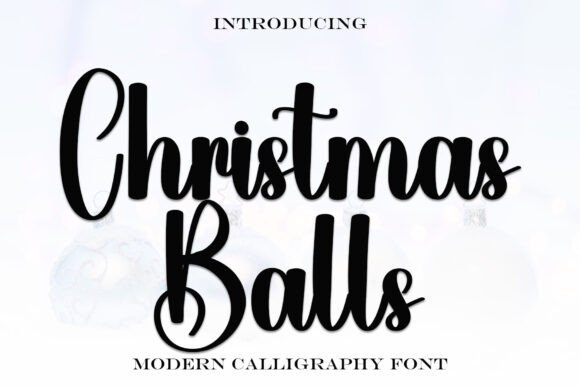
Christmas Balls Font: Elevate Your Designs with Elegance and Class
Are you looking for a font that exudes sophistication and style to make your design projects stand out? Look no further than Christmas Balls Font, a trendy handwritten font that brings a contemporary atmosphere and impeccable form to the table. Inspired by timeless classic calligraphy, Christmas Balls Font is the perfect addition to add elegance and class to any of your designs.
What is Christmas Balls Font?
Christmas Balls Font is a modern, handwritten font that boasts a unique and stylish aesthetic. Its contemporary design makes it an excellent choice for a wide range of projects, from festive holiday designs to elegant branding and marketing materials. With its impeccable form and classic calligraphy inspiration, Christmas Balls Font is sure to elevate your designs and leave a lasting impression.
Key Features of Christmas Balls Font
- Trendy and Modern Design: Christmas Balls Font features a fresh and contemporary design that will make your projects stand out from the crowd.
- Handwritten Aesthetic: The font’s handwritten style adds a personal touch to your designs, making them more approachable and engaging.
- Inspired by Classic Calligraphy: Christmas Balls Font draws inspiration from timeless classic calligraphy, ensuring that your designs exude elegance and sophistication.
- Impeccable Form: The font’s impeccable form ensures that your designs look polished and professional, making it perfect for high-end branding and marketing materials.
Why Choose Christmas Balls Font?
With so many fonts available, why choose Christmas Balls Font? Here are just a few reasons why this font stands out from the rest:
- Versatility: Christmas Balls Font is suitable for a wide range of projects, from holiday designs to elegant branding and marketing materials.
- Elegance and Class: The font’s classic calligraphy inspiration and impeccable form ensure that your designs exude elegance and sophistication.
- Easy to Read: Christmas Balls Font is clear and easy to read, making it perfect for body text and headlines.
- Unique and Stylish: The font’s trendy and modern design ensures that your projects will stand out from the crowd.
How to Use Christmas Balls Font
Using Christmas Balls Font in your designs is easy. Here are a few tips to get you started:
- Pair with Other Fonts: Christmas Balls Font pairs well with other fonts, making it easy to create stunning font combinations.
- Use for Headlines and Body Text: The font’s clarity and readability make it perfect for both headlines and body text.
- Add to Your Brand Identity: Use Christmas Balls Font to create a consistent brand identity across all your marketing materials.
Design Ideas Using Christmas Balls Font
Here are a few design ideas to get you started:
- Holiday Cards and Invitations: Use Christmas Balls Font to create stunning holiday cards and invitations that exude elegance and sophistication.
- Elegant Branding and Marketing Materials: The font’s classic calligraphy inspiration and impeccable form make it perfect for high-end branding and marketing materials.
- Wedding Stationery: Christmas Balls Font is a beautiful choice for wedding stationery, including invitations, programs, and place cards.
Tips for Pairing Christmas Balls Font with Other Fonts
Pairing Christmas Balls Font with other fonts can create stunning font combinations. Here are a few tips to keep in mind:
- Pair with Serif Fonts: Christmas Balls Font pairs well with serif fonts, such as Times New Roman or Garamond.
- Pair with Script Fonts: The font also pairs well with script fonts, such as Pacifico or Great Vibes.
- Experiment with Font Sizes: Don’t be afraid to experiment with different font sizes to create visual interest.
Christmas Balls Font is a trendy handwritten font that brings a contemporary atmosphere and impeccable form to the table. Inspired by timeless classic calligraphy, this font is perfect for adding elegance and class to any of your design projects. With its versatility, ease of use, and stunning design, Christmas Balls Font is a must-have for any designer looking to elevate their designs.
Get Creative with Christmas Balls Font
Now that you’ve learned more about Christmas Balls Font, it’s time to get creative! Download the font and start experimenting with different design projects. Whether you’re a seasoned designer or just starting out, Christmas Balls Font is sure to elevate your designs and add a touch of elegance and class.